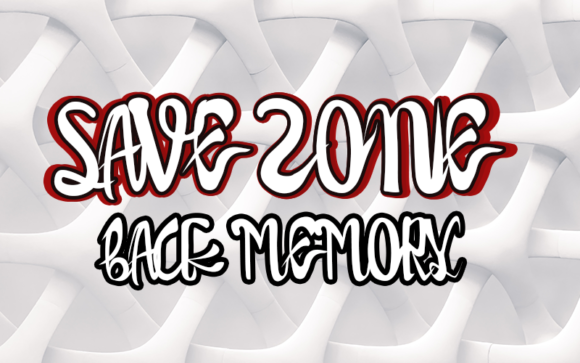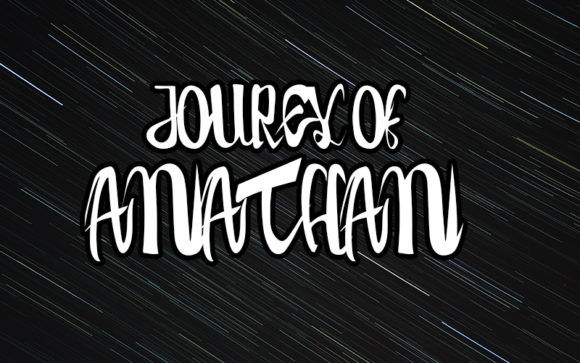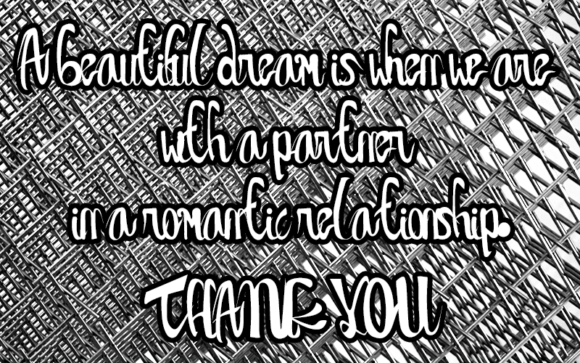
Introducing Absolute Font: The Cute and Casual Handwritten Font for Creative Projects
Are you a designer, crafter, or DIY enthusiast looking for a font that can add a personal touch to your creative projects? Look no further than Absolute Font, a cute and casual handwritten font that exudes an incredibly friendly feel. In this article, we’ll explore the features and benefits of Absolute Font, and how it can help you turn your creative ideas into true pieces of art.
The Characteristics of Absolute Font
Absolute Font is a handwritten font that boasts a unique and charming personality. Its casual and relaxed style makes it perfect for a wide range of creative projects, from social media graphics and Instagram posts to calligraphy scripts and DIY crafts. The font’s friendly feel is sure to resonate with your audience, making your designs and crafts more approachable and engaging.
Perfect for Instagram and Social Media Graphics
In today’s digital age, having a strong online presence is crucial for designers, crafters, and small businesses. Absolute Font is an excellent choice for creating Instagram graphics, Facebook posts, and other social media content. Its playful and informal style will help your online presence stand out from the crowd, and its readability ensures that your message will be conveyed clearly and effectively.
Ideal for Calligraphy Scripts and DIY Projects
If you’re a crafter or DIY enthusiast, you’ll love Absolute Font’s versatility and flexibility. The font can be used for a wide range of projects, from handmade cards and invitations to craft tutorials and blog posts. Whether you’re creating a custom wedding invitation or a set of handmade gift tags, Absolute Font is the perfect choice for adding a personal touch to your crafts.
Key Features and Benefits of Absolute Font
- Cute and casual style: Absolute Font’s playful and relaxed style makes it perfect for creative projects that require a friendly and approachable feel.
- Incredibly friendly feel: The font’s unique personality is sure to resonate with your audience, making your designs and crafts more engaging and relatable.
- Highly versatile: Absolute Font can be used for a wide range of creative projects, from social media graphics and calligraphy scripts to DIY crafts and handmade cards.
- Easy to read: The font’s clear and legible style ensures that your message will be conveyed clearly and effectively.
Tips for Using Absolute Font in Your Creative Projects
To get the most out of Absolute Font, here are a few tips to keep in mind:
- Experiment with different colors and textures: Absolute Font looks great in a variety of colors and textures, so don’t be afraid to get creative and try out different combinations.
- Pair with other fonts: Absolute Font can be paired with other fonts to create a unique and interesting contrast. Try pairing it with a bold sans-serif font for a striking effect.
- Use it for headings and titles: Absolute Font’s playful style makes it perfect for headings and titles. Use it to add a personal touch to your designs and crafts.
Absolute Font is a unique and versatile handwritten font that’s perfect for designers, crafters, and DIY enthusiasts. Its cute and casual style, incredibly friendly feel, and high level of readability make it an excellent choice for a wide range of creative projects. Whether you’re looking for fonts for Instagram or calligraphy scripts for DIY projects, Absolute Font is sure to turn your creative ideas into true pieces of art.